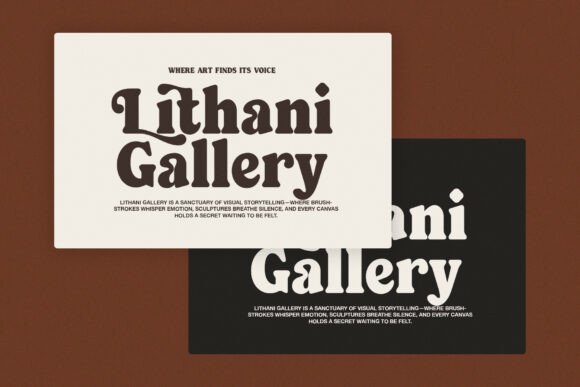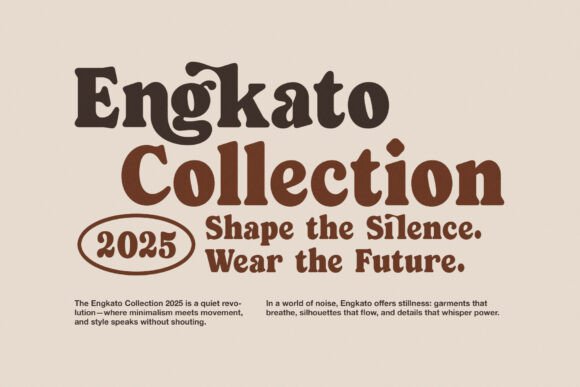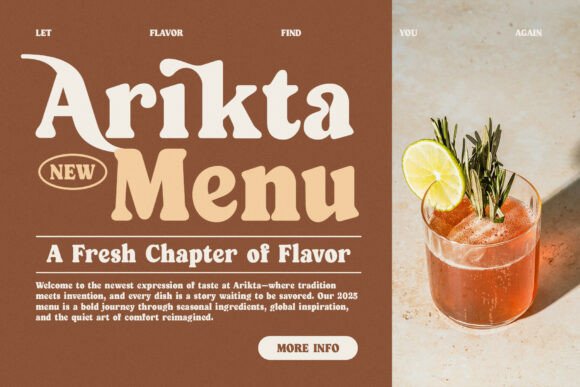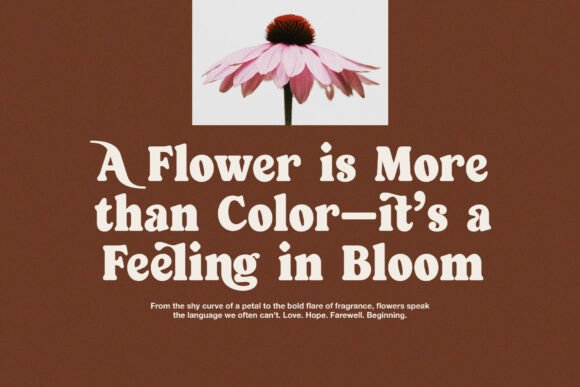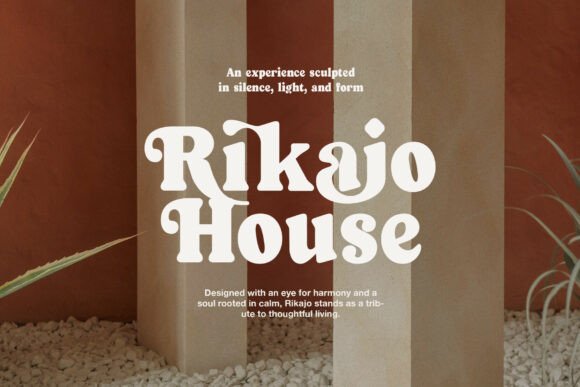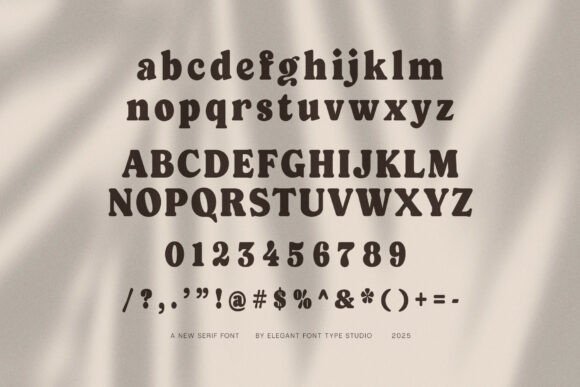
Introduction to Kongo Font
Kongo is a stylish and modern serif typeface designed to bring sophistication to any project.
With clean lines and balanced proportions, this font adds elegance without losing readability Whether youโre creating branding for a luxury product or designing content for a creative business, Kongo delivers a polished look with minimal effort.
Key Features of Kongo Font
Why Choose Kongo Font?
Kongo Font offers exceptional quality and versatility, making it a valuable addition to your design toolkit. Whether you’re creating for personal projects or commercial use, Kongo Font delivers professional results.